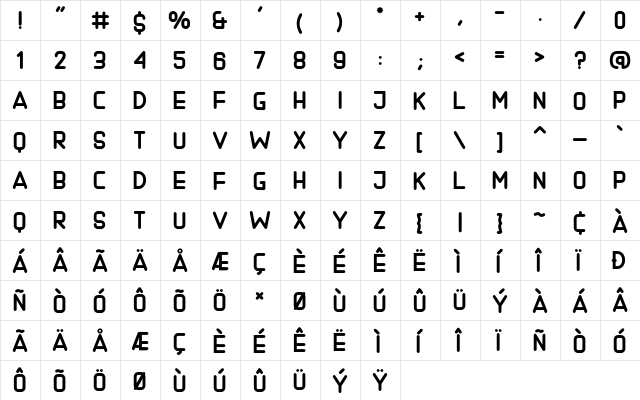
Matrouh Regular
Design Context for Matrouh Typeface
Matrouh is a composed and adaptable typeface that performs quietly and consistently across a wide range of design contexts.